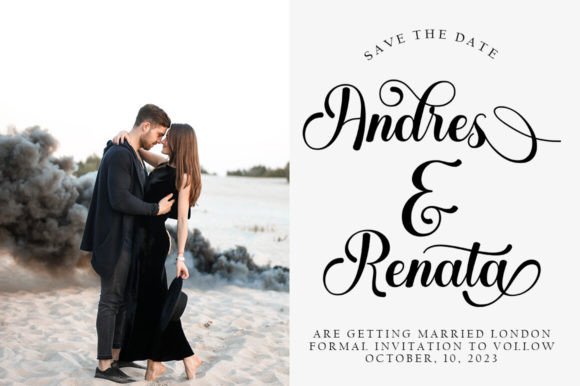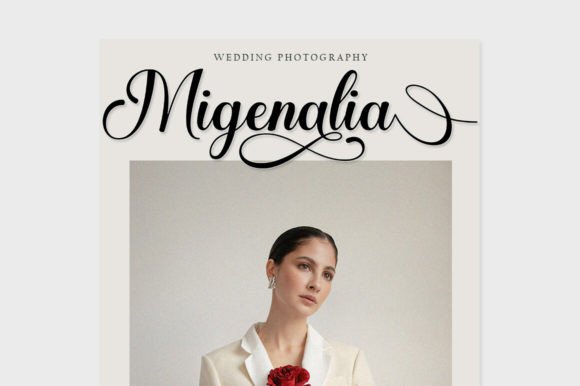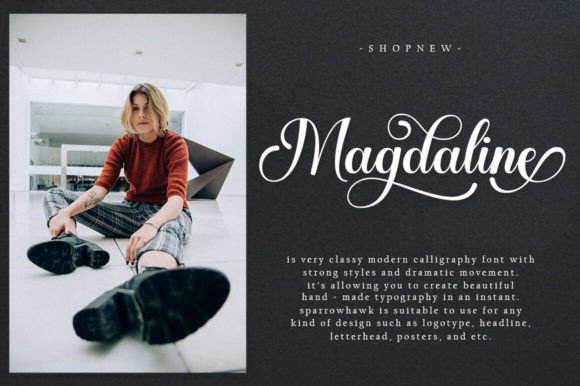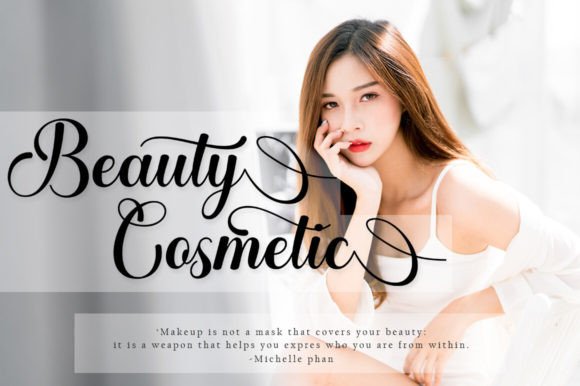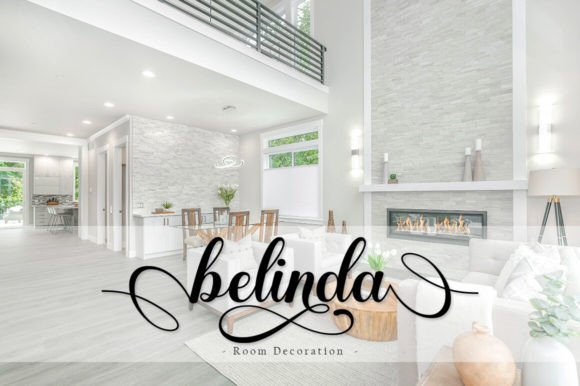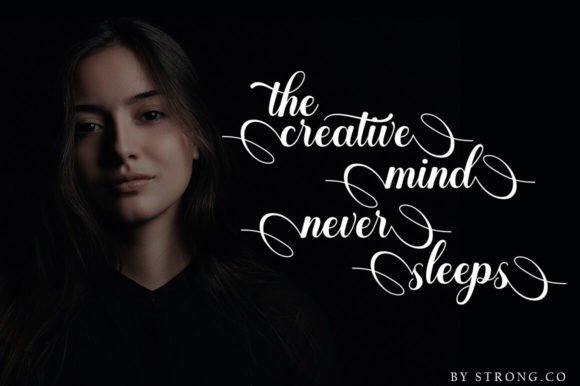
Introduction to Redynand Font Font
Fonts play a crucial role in design, and the Redynand Font font is a typeface that brings both character and versatility to any project. Whether you’re working on a branding project, a website, or a print design, the Redynand Font font offers a unique style that can elevate your work.
Redynand Script is a soft and sweet Bold typeface, with characters dancing along the baseline.
It has a casual and elegant touch Can be used for various purposes such as logos, wedding invitations, headings, t-shirts, letterheads, signage, labels, news, posters, badges, etc.
The Redynand Font font is more than just a typeface – it’s a design tool that helps you communicate your message with style and clarity. Its unique character set and versatile design make it suitable for a wide range of applications, from elegant invitations to bold headlines.
With its carefully crafted letterforms and balanced proportions, the Redynand Font font ensures readability and visual appeal across all mediums.
The Redynand Font font stands out with its unique design, exceptional readability, and versatility across various design applications.